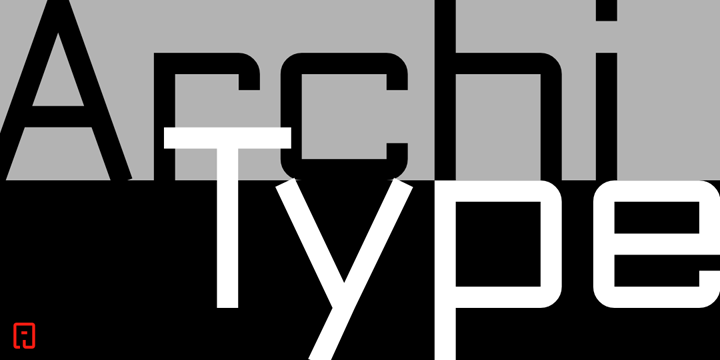
This distinct typeface is an exceptional selection for projects that demand a blend of architectural precision, modern aesthetics, and a clean, structured feel. Imagine it defining the blueprints of innovative design firms, giving a sophisticated edge to urban planning presentations, or gracing the layouts of cutting-edge tech publications. ArchiType Font is also perfectly suited for designing streamlined user interfaces, crafting impactful branding for creative agencies, or producing minimalist yet strong headlines for editorial content. Its geometric clarity and contemporary appeal make it an ideal choice for any design seeking to convey order, foresight, and a forward-thinking vision, such as technical drawings, exhibition displays, or futuristic product branding.
What makes ArchiType Font so exciting? It stands out with its meticulously crafted letterforms that often exhibit a strong sense of proportion and balance, much like a well-designed building. This font doesn’t just convey information; it constructs it with an inherent sense of stability and intellectual rigor. It’s engineered to offer exceptional readability while simultaneously making a strong visual statement that speaks to precision and innovation. The clean lines and often monolinear strokes give it a versatile quality, allowing it to adapt seamlessly from bold headings to subtle body text. Its inherent appeal lies in its ability to marry functionality with a compelling, modern aesthetic, making it a favorite for brands that champion clarity, structure, and a progressive outlook.
The ArchiType Font family typically provides a thoughtful range of weights and styles to ensure comprehensive design flexibility. You can expect to find options such as Thin, Light, Regular, Medium, and Bold, alongside corresponding italic versions. Each weight is carefully designed to maintain the font's core architectural characteristics while offering distinct levels of visual impact and hierarchy. These variations allow designers to create nuanced and effective typographic compositions, differentiating between primary messages and supporting details with ease. The availability of diverse weights ensures that ArchiType Font can be a cornerstone typeface for an entire project, guaranteeing visual harmony and a professional, cohesive appearance across all mediums.
Whether you're shaping a new corporate identity, designing a complex web application, or simply need a typeface that embodies precision and modern elegance, ArchiType Font Free Download is an outstanding choice. Its structured beauty and versatile nature will ensure your designs always communicate with clarity and sophisticated purpose.